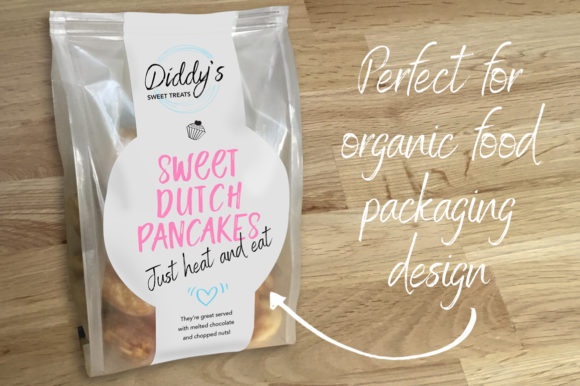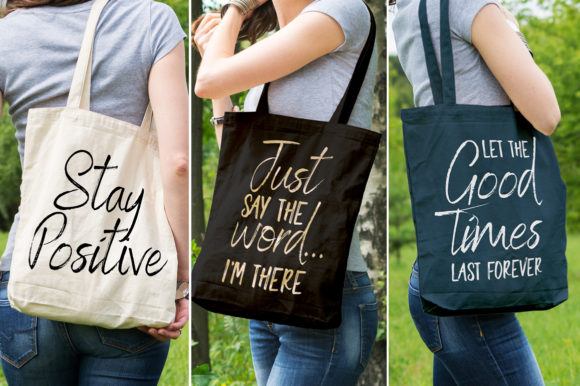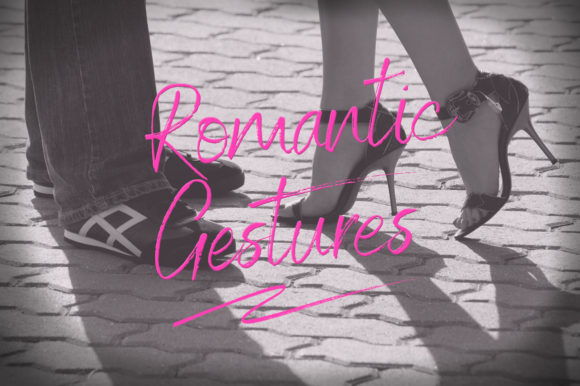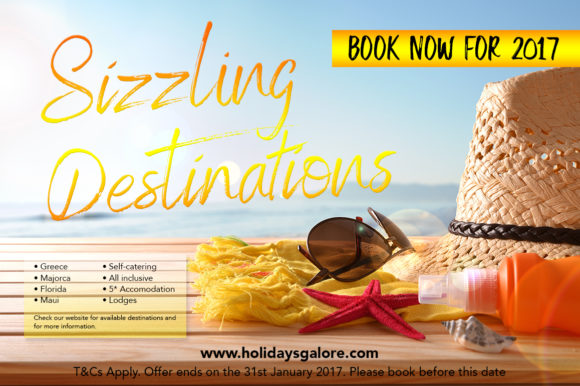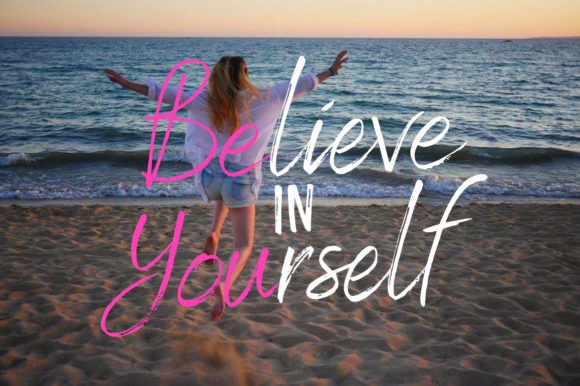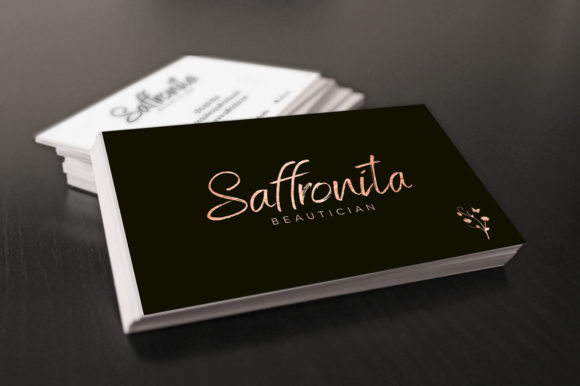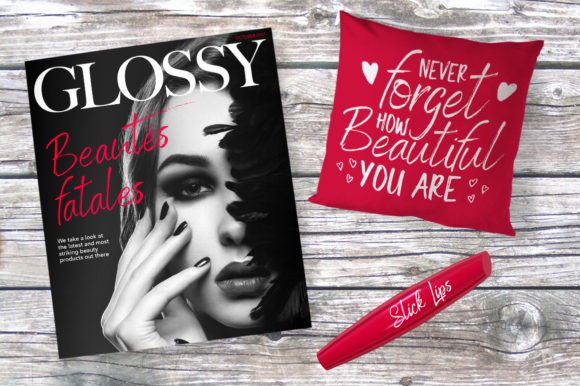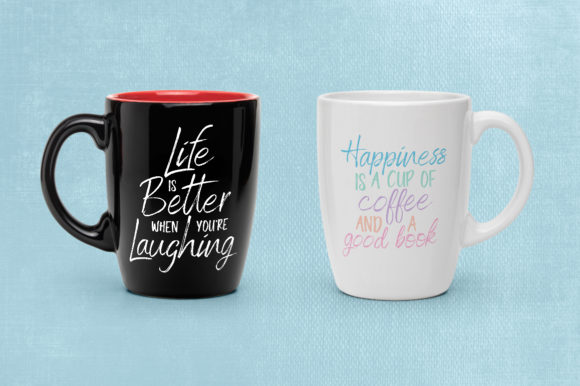
HomeScript FontsBenedict Duo Font Script Fonts Benedict Duo Font FacebookXPinterestWhatsApp Benedict Duo Font Poster 2 Benedict Duo Font Poster 3 Benedict Duo Font Poster 4 Benedict Duo Font Poster 5 Benedict Duo Font Poster 6 Benedict Duo Font Poster 7 Benedict Duo Font Poster 8 Benedict Duo Font Poster 9 About Benedict Duo Font Benedict & Mistress Benedict is a pair of hand brushed fonts attentively designed to work together. DOWNLOAD NOW People also explored Grunell Font Nostrud Font Augustine Font White Horse Font Persian Cotage Font Spring Has Arrived Font Clementina Beauty Magnolia Line Monogram Font 30 Beer Mockups in Formentera 489 0 TagsBenedict Duo Font Previous articleSignificant FontNext articleRashida Font LEAVE A REPLY Cancel reply Comment: Please enter your comment! Name:* Please enter your name here Email:* You have entered an incorrect email address! Please enter your email address here Website: Save my name, email, and website in this browser for the next time I comment. Personal Use Free Straighler Personal Use Free Read more about this font Catandra Script Personal Use Free Read more about this font Messages Personal Use Free Read more about this font Waverly Date Personal Use Free Read more about this font BLOG Where to Buy American Fonts Online in 2024 Where to Buy American Fonts Online: The Ultimate Guide for 2024 Looking for the perfect American font to elevate your design projects? You're in the... Free Fonts Risk: Why Free Fonts Can Be Dangerous for Designers How to Install and Use Fonts on Windows, macOS, and Web Projects How to Cut Any Font on Cricut: Convert a Font to SVG (Free)